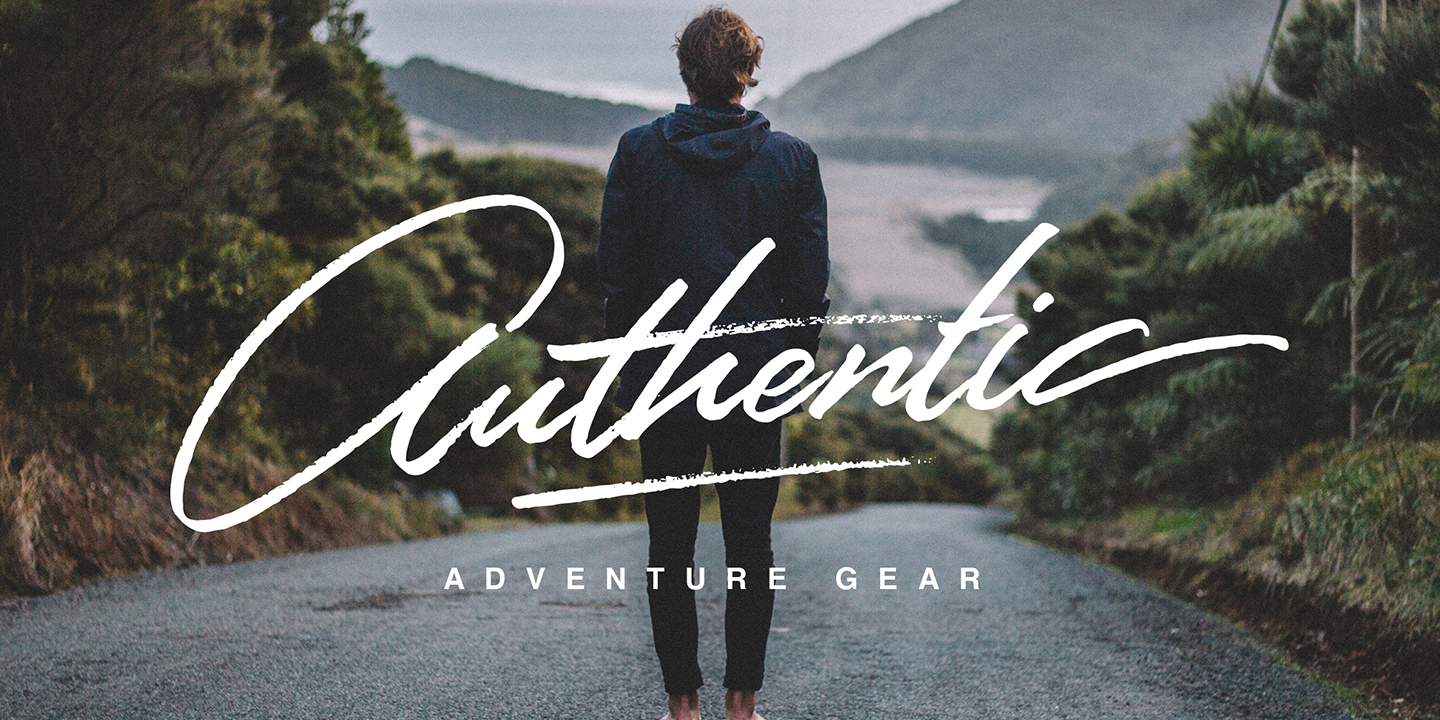
The Colatin Font is perfect for Latin American cultural projects, international business communications, multicultural branding initiatives, global education materials, diplomatic publications, cross-cultural marketing campaigns, international restaurant branding, cultural festival promotions, and diverse community organizations that require sophisticated typography with international versatility and cultural sensitivity.
What makes the Colatin Font so exciting is its extraordinary ability to bridge diverse cultural traditions and linguistic communities through carefully crafted letterforms that honor both classical typography heritage and contemporary international communication needs. This remarkable typeface embodies the spirit of cultural collaboration and global connectivity, featuring refined character constructions with subtle multicultural influences and versatile styling that creates an immediate sense of inclusivity, respect, and professional international credibility. The font's cross-cultural appeal and diplomatic sophistication make it the perfect choice for brands and projects that celebrate diversity, facilitate international dialogue, and promote understanding across different cultural communities.
The Colatin Font family typically includes light, regular, medium, and bold weights, along with extensive multilingual character support, international symbols, and cultural design elements that provide global organizations with comprehensive tools for creating inclusive branding systems and culturally sensitive communications across diverse international applications.
International organizations and multicultural businesses consistently choose Colatin Font Free Download for its exceptional ability to convey cultural respect and global professional credibility. This sophisticated typeface represents the perfect synthesis of international diplomacy and contemporary design excellence, offering professionals a distinguished tool for building meaningful connections across cultural boundaries with audiences who value diversity, inclusion, and respectful cross-cultural communication. Whether you're developing branding for international nonprofits, creating multilingual educational materials, designing diplomatic communications, or crafting global marketing campaigns, this font delivers the cultural sensitivity and professional authority that international communications require.
The expertly crafted letterforms of the Colatin Font showcase balanced proportions and culturally aware styling details that ensure excellent readability across multiple languages while maintaining respectful character that honors diverse cultural traditions. The font's diplomatic appearance and international sophistication create immediate associations with trustworthiness, cultural competence, and the professional standards expected in global communication contexts.
International brand designers and cultural communication specialists appreciate the font's comprehensive multilingual capabilities and culturally inclusive design principles, which enable the creation of typography that resonates authentically with diverse global audiences while maintaining the professional credibility essential for effective cross-cultural business relationships.
For organizations seeking to establish genuine connections with international communities and communicate authentic respect for cultural diversity through their visual identity, the Colatin Font provides an exceptional typography solution. Its multicultural foundation and proven global appeal make it particularly suitable for international businesses, cultural institutions, diplomatic organizations, and educational institutions that prioritize cross-cultural understanding and global collaboration.
The font's optimization for both traditional international print materials and modern global digital platforms ensures consistent cross-cultural impact across all international communication channels, while its timeless diplomatic aesthetic provides enduring value for globally focused brand systems requiring typography that authentically represents the importance of cultural respect and international cooperation in today's interconnected world.